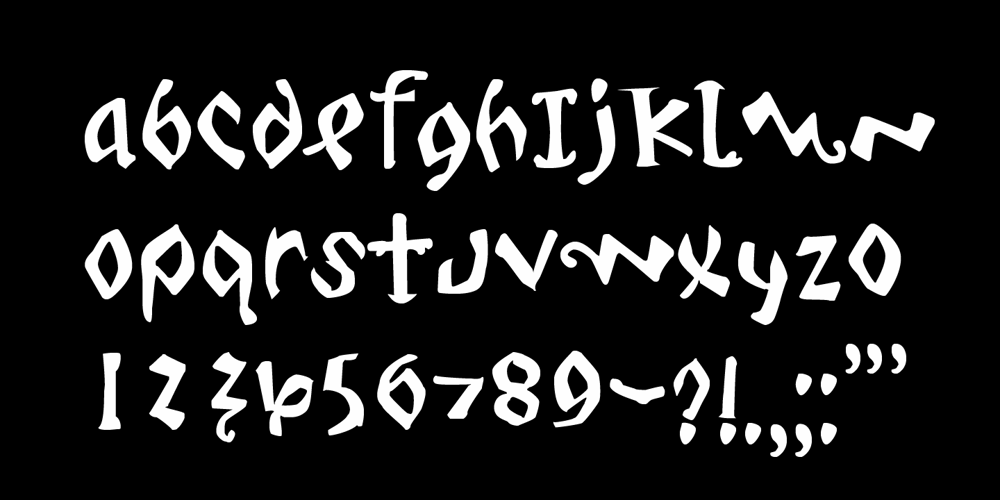
Quandary Font Family was designed by Winnie Tan and published by Winnie Tan. Quandary contains 1 styles and family package options. The Quandary Font is created for a horror theme in use with an illustrated book ‘The Predicament’ by Edgar Allan Poe. It is designed as a highly expressive face to accentuate a sense of mystery and the macabre. A comparatively more carefree and free-spirited face, it comes as a uni-case single weight family used exclusively as the main face for the book. The characters are developed from the numeric glyphs found on the astronomical clock-face at Prague Old Town Square, Czech Republic. http://www.behance.net/gallery/Quandary/383204